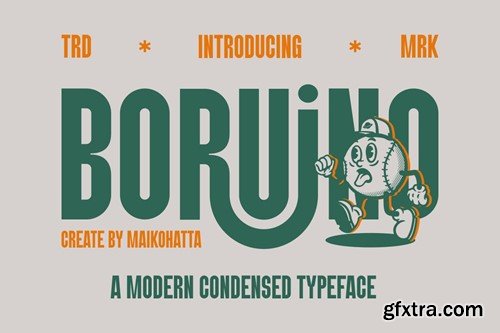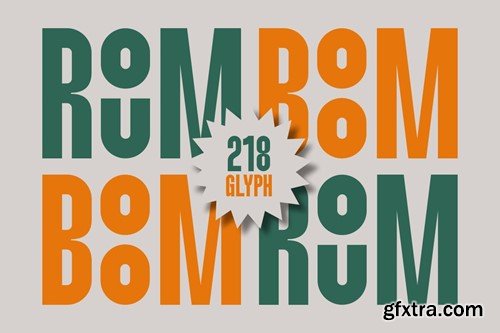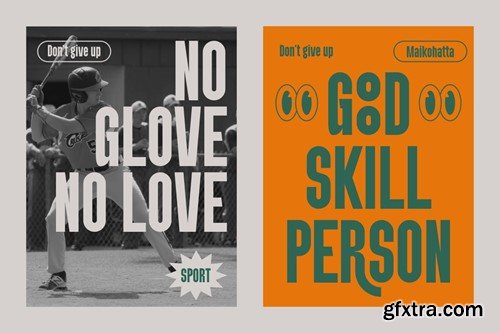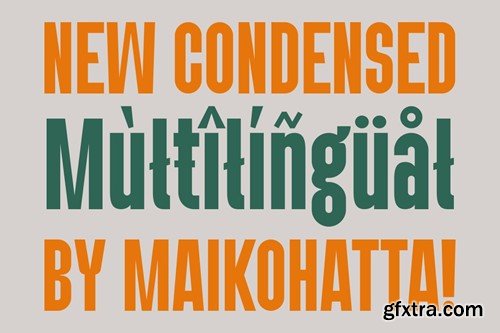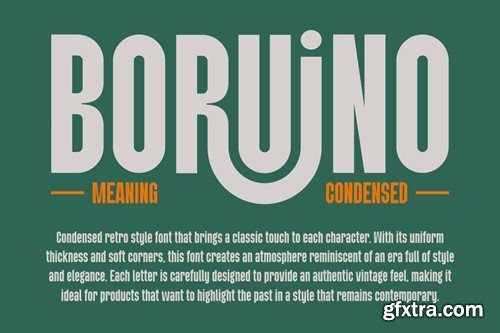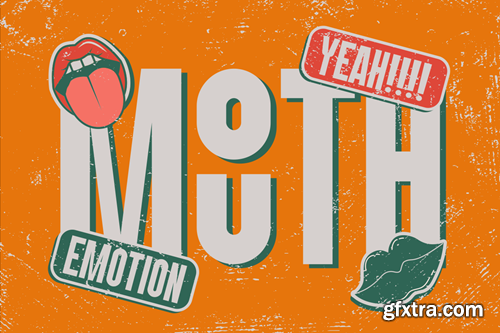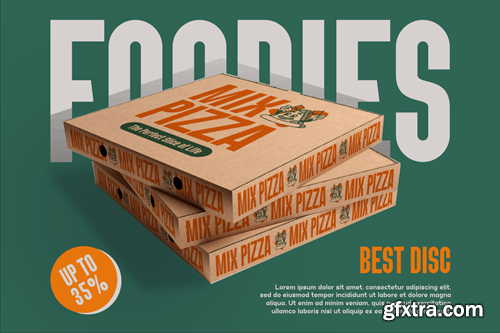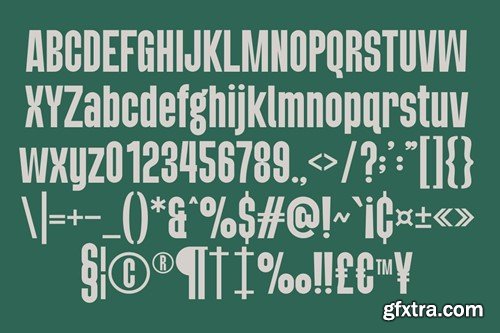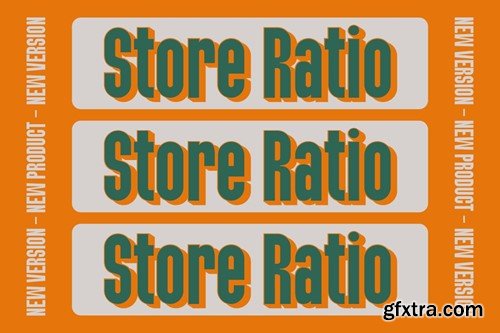
Boruino - Modern Condesed Font RP7476A
Boruino - Modern Condesed Font
Introducing our new product Boruino - Modern Condensed Font
This font is a type of font that is characterized by narrower or slimmer letterforms compared to regular or wide fonts. Condensed fonts are often used in various graphic designs, print materials, and other media because they have distinct advantages and unique characteristics
• Uppercase
• Lowercase
• Multilingual
• Alternate
• Ligature